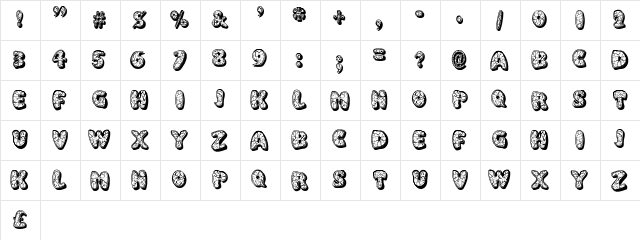
Eggshell Mosaic Regular
Design Context for Eggshell Mosaic Typeface
Eggshell Mosaic is a composed and adaptable typeface that performs quietly and consistently across a wide range of design contexts.